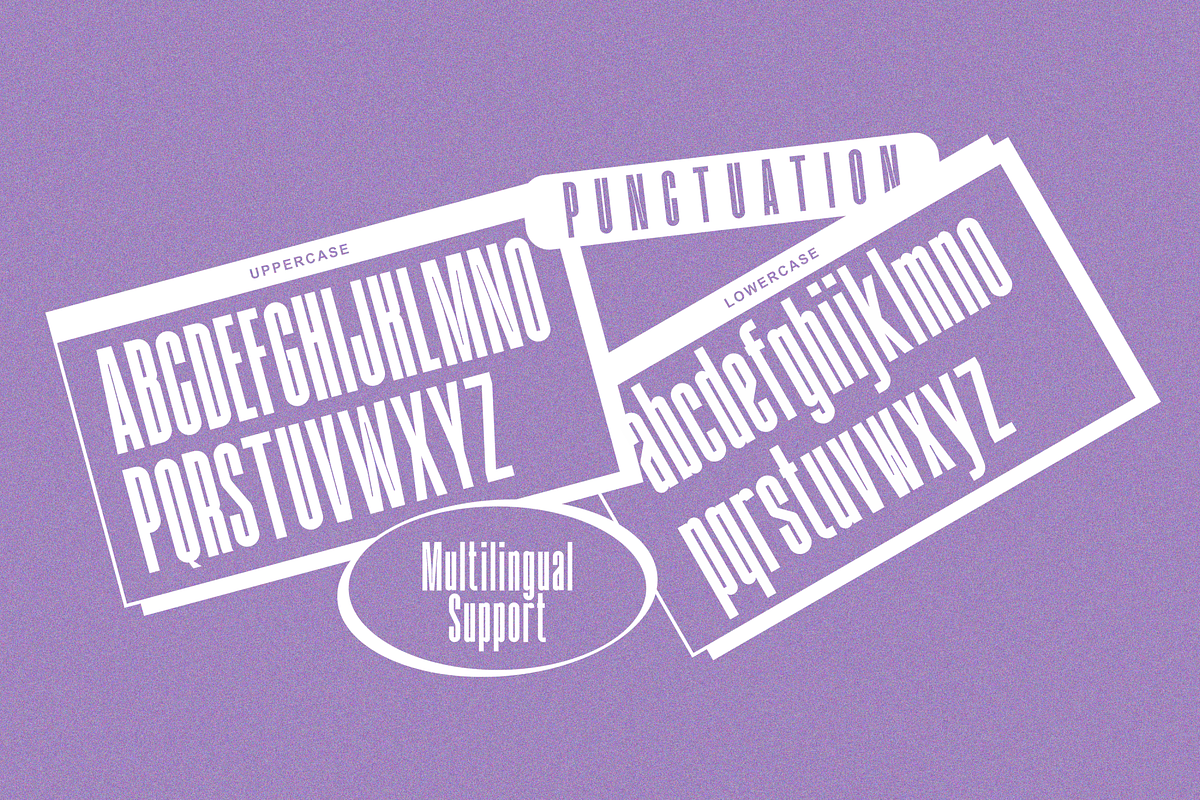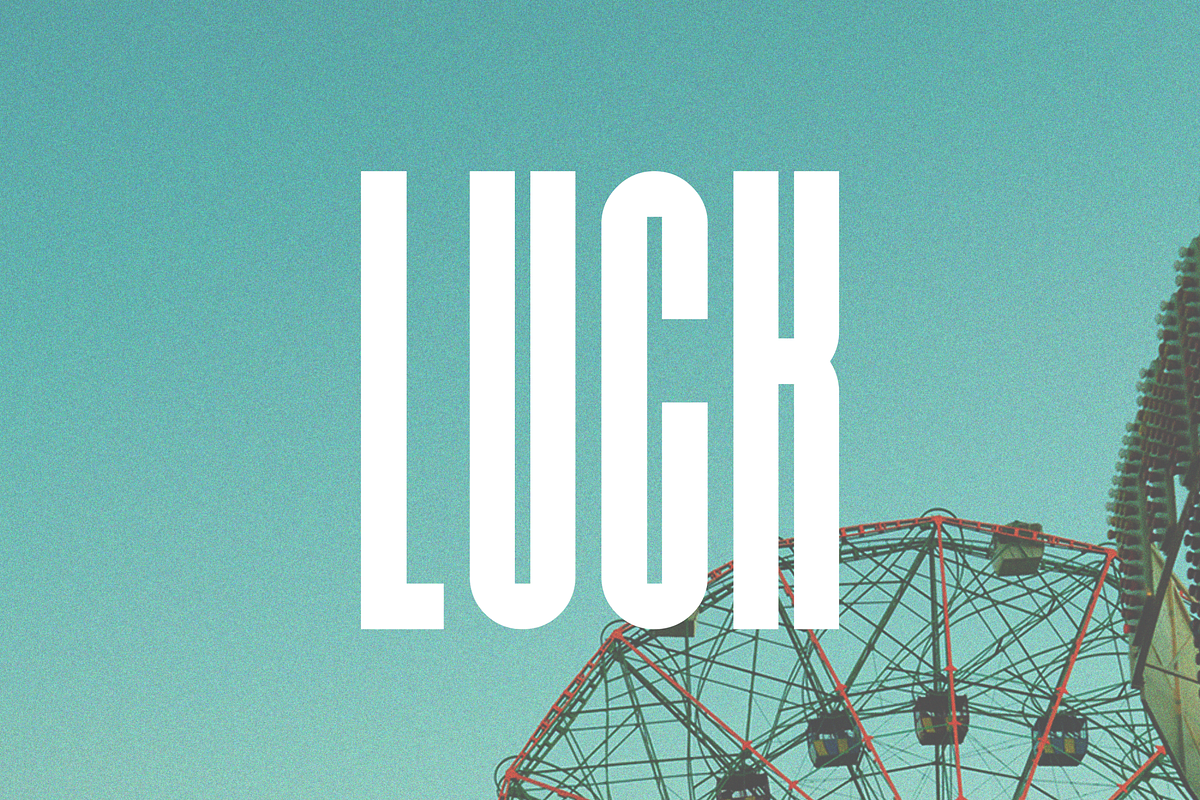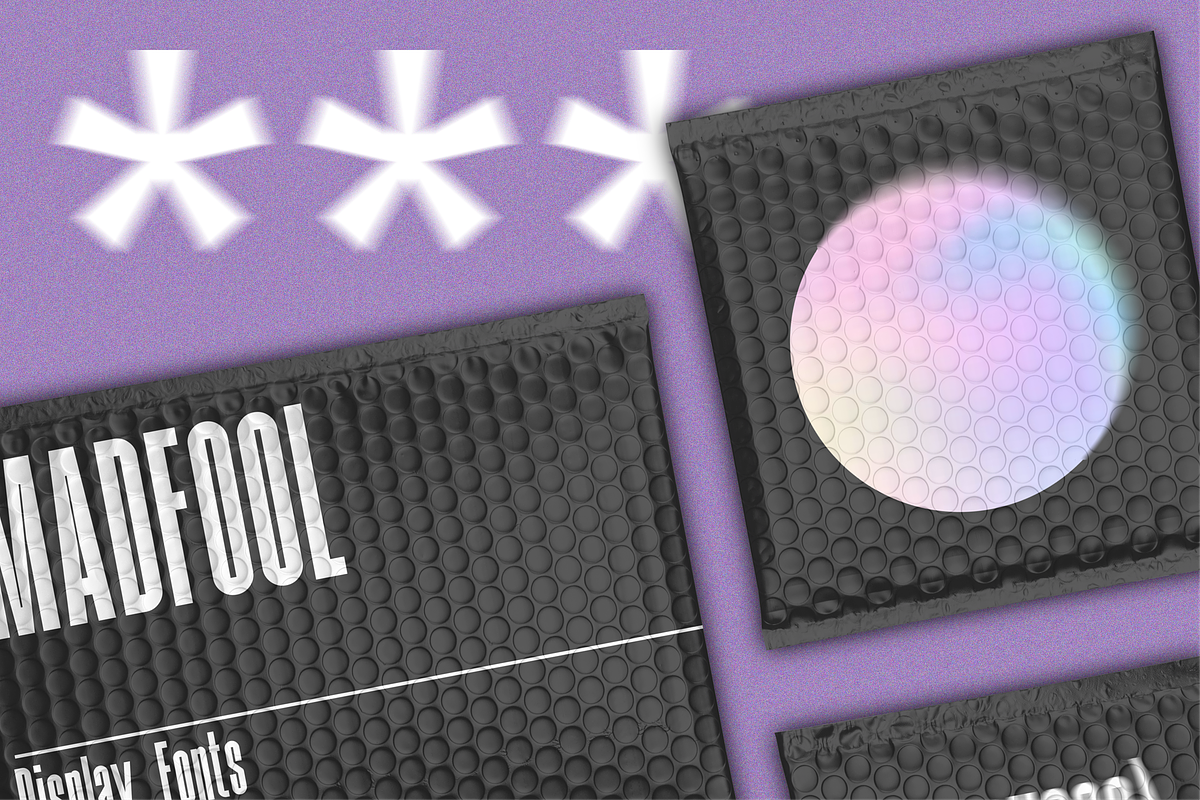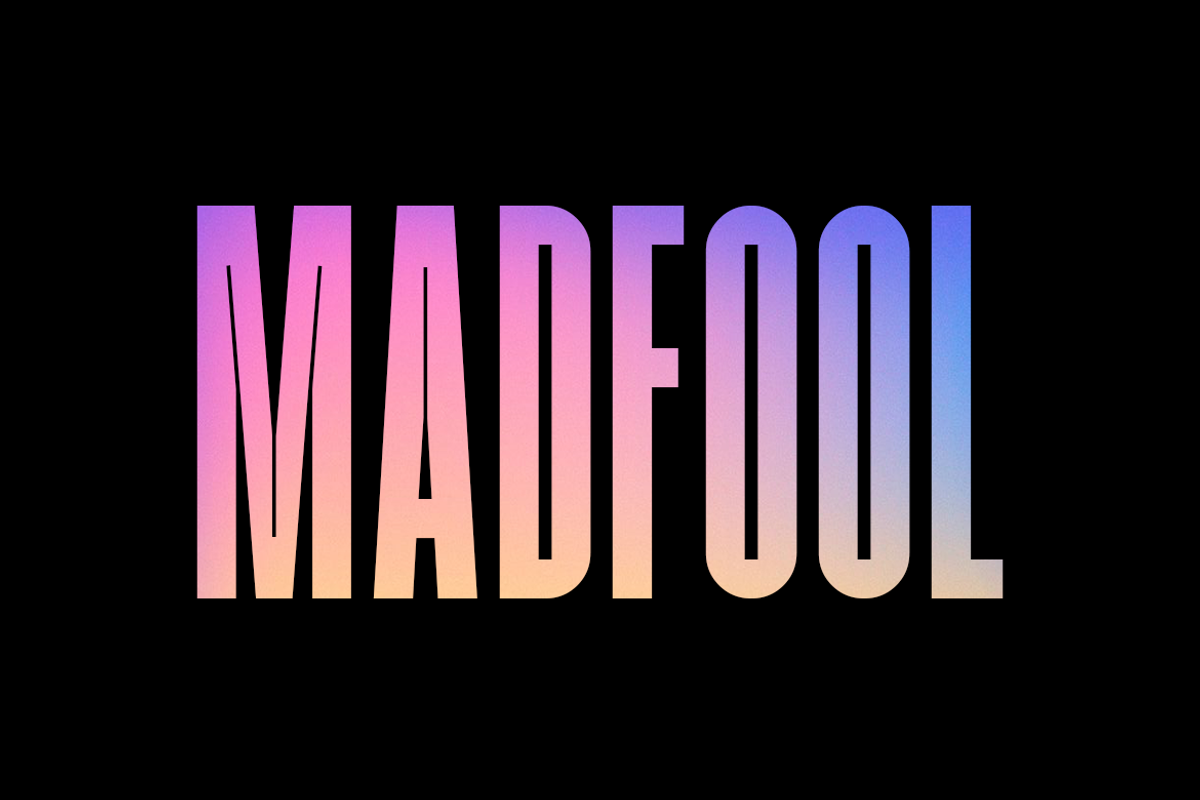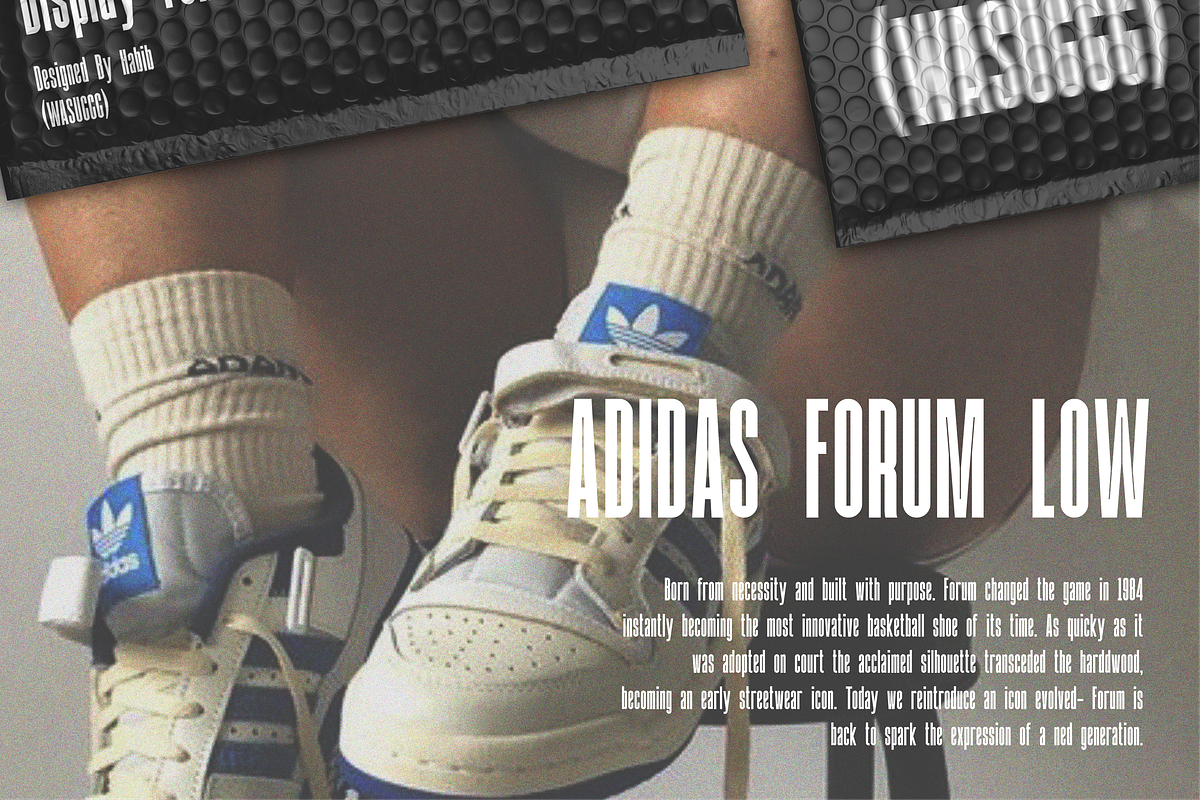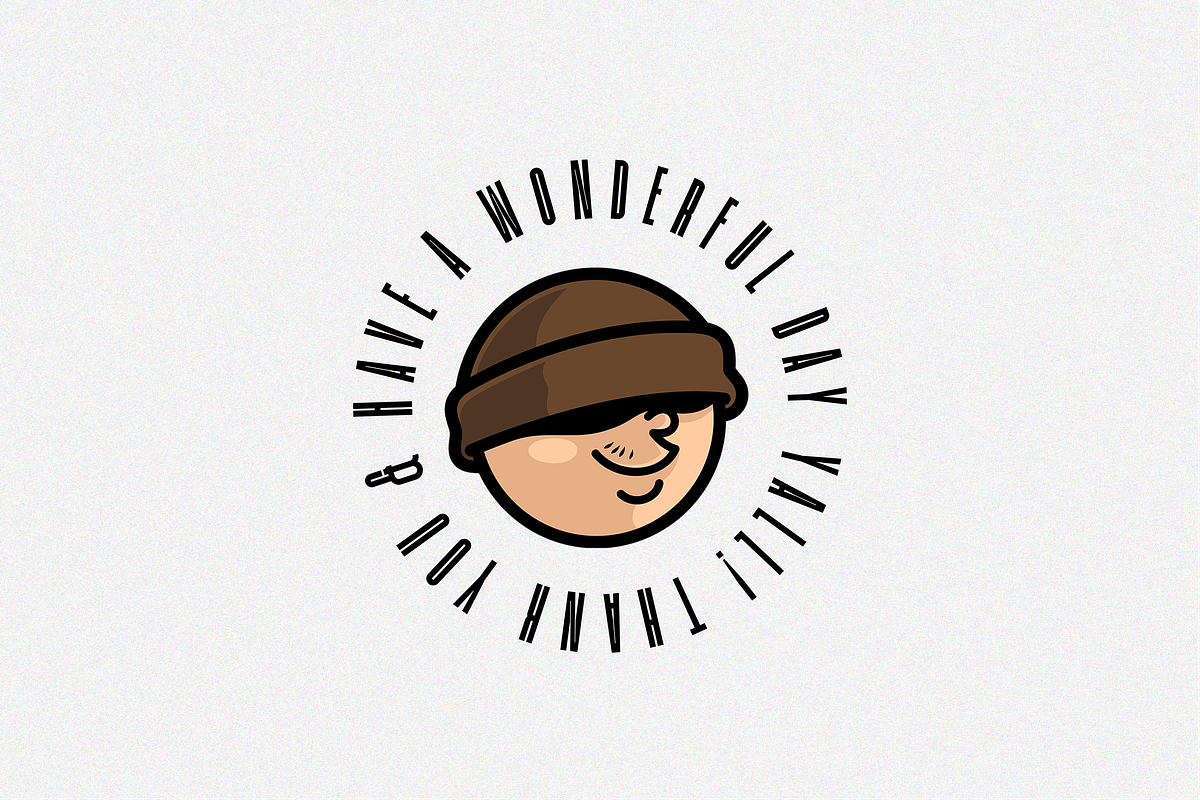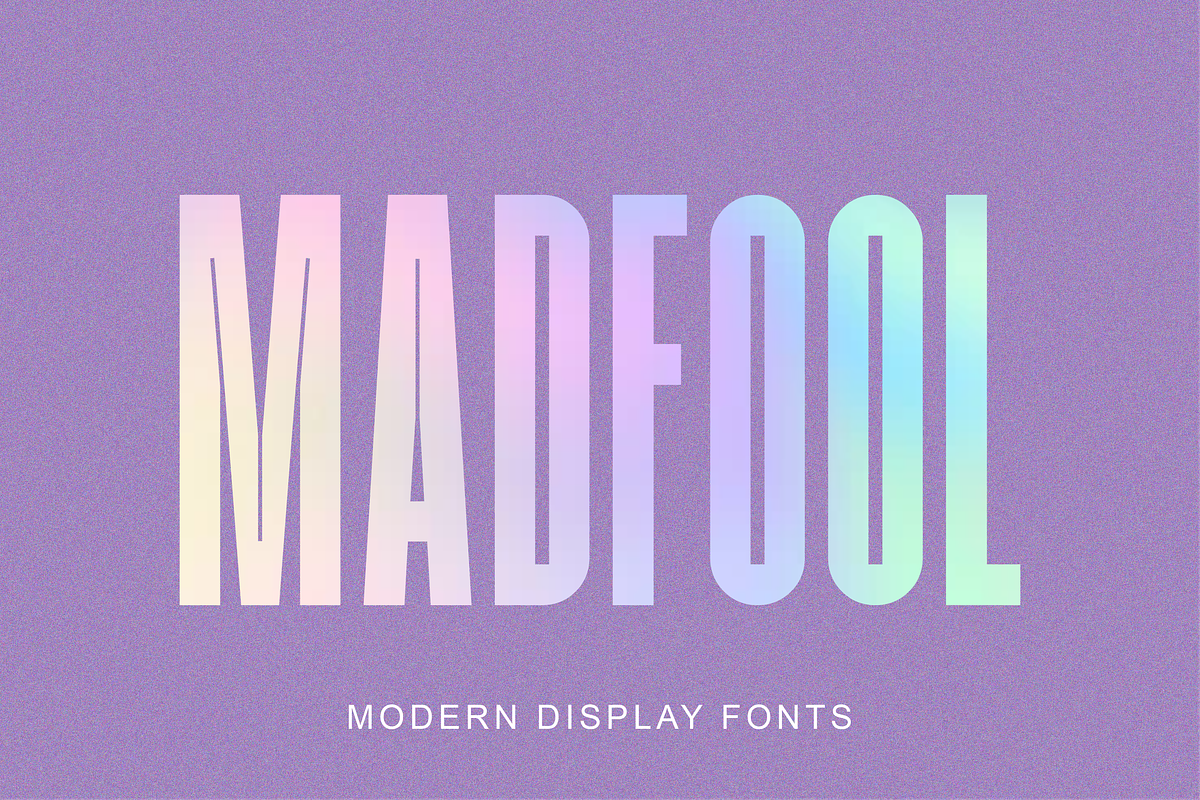
Madfool
Madfool is a striking modern sans serif typeface designed for impactful display use. Its bold strokes and clean lines create a sense of strength and elegance. While primarily intended for headlines and short text segments like movie titles or book covers, its versatility allows for creative application in branding, packaging, and even sports-related designs. The font's tall letterforms contribute to its commanding presence, making it ideal for projects where readability and visual impact are crucial.